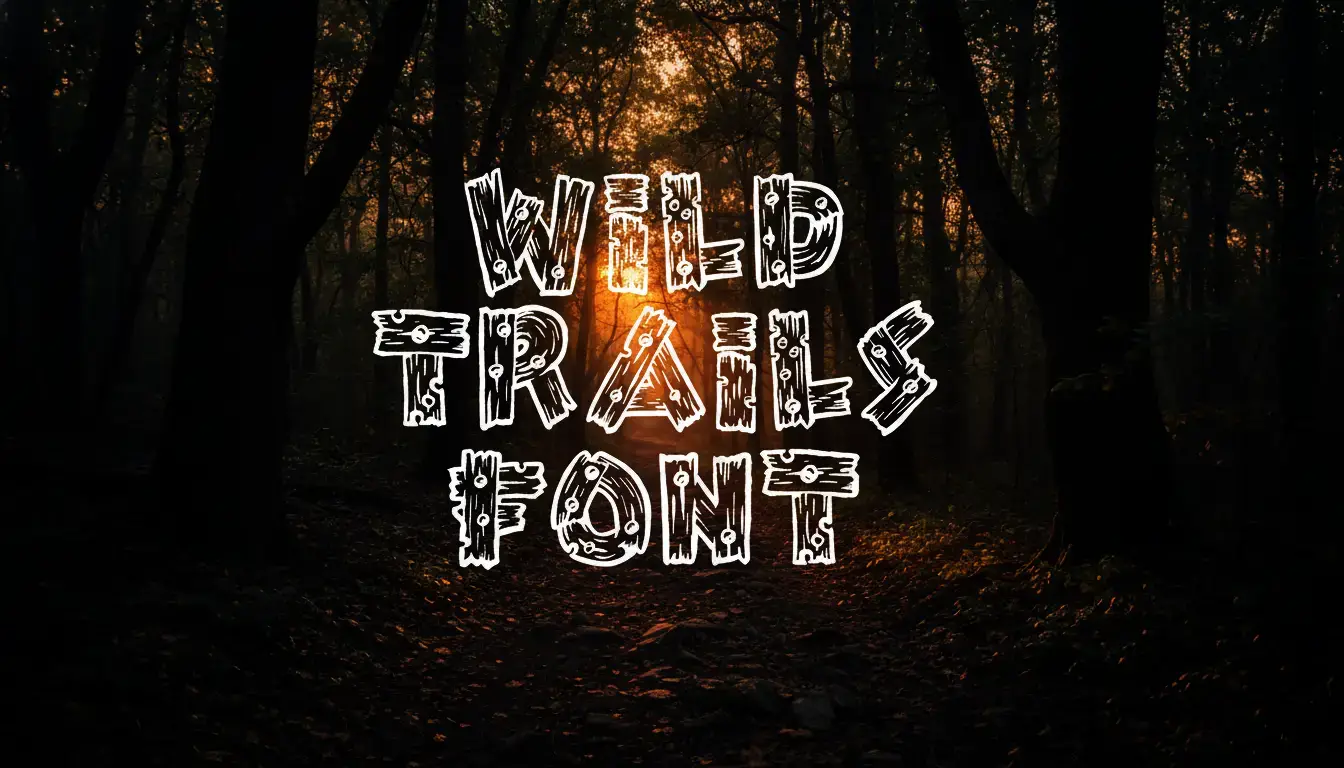
WILD TRAILS FONT
WILD TRAILS is a Western font designed by Imagex. Its letters feel straight out of a cowboy movie, sturdy and full of old-west character. You can download it for free and test it with your own words in the preview above.
- Designer: Imagex
- Glyphs: 50
- Characters: A–Z, 0–9 and basic punctuation
What You Can Type With WILD TRAILS
WILD TRAILS is an all-caps font: it only has capital letters. Lowercase letters will show up in a different font or as empty boxes, so turn on Caps Lock when you type. All ten numbers are included. Common punctuation such as ! and ? is included as well. It doesn't include accented letters such as é or ñ, which makes it an English-only font.
Where WILD TRAILS Works Best
WILD TRAILS is a natural fit for rodeo posters, saloon signs and country music flyers. Try it in brown, rust or cream on a paper texture for the full old-west look.
Does WILD TRAILS support accented letters?
No. WILD TRAILS has no accented letters such as é, ñ or ü, so it's best for English text.
What fonts pair well with WILD TRAILS?
A sturdy slab serif or a simple serif works well for the smaller text.